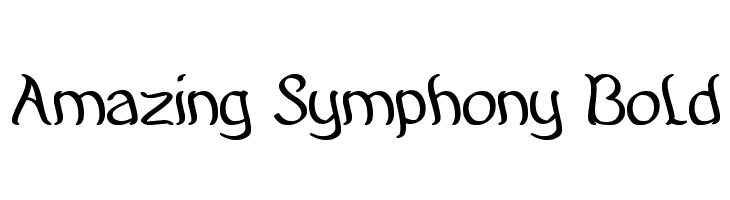
( Fonts by Alit Suarnegara - Alit Design - www.alitdesign.net - Personal-use only. For commercial use please contact owner. )
A playful, bold handwritten font with smooth curves and a lively appearance.
( Fonts by NanaNissa - Personal-use only. For commercial use please contact owner. )
An elegant and flowing script font with graceful curves and loops.
( Fonts by Tan Cundrawan - cove703 - creativemarket.com/cove703 - Personal-use only. For commercial use please contact owner. )
A playful and elegant script font with fluid, connected strokes.
( Fonts by Adien Gunarta - fontasticindonesia.blogspot.com )
An artistic, calligraphic font with elegant curves and decorative flourishes.
( Fonts by 1PrivateTime )
Casual handwritten sans-serif with playful, organic strokes.
( Fonts by 1PrivateTime )
Casual handwritten sans-serif with playful, rounded forms.
( Fonts by Typnco Studio - Personal-use only. For commercial use please contact owner. )
A bold, brush-style script font with dynamic strokes and artistic flair.
( Daddi Daryawan )
A playful and casual handwritten font with fluid, organic letterforms.
( Fonts by Multype Studio )
A relaxed, handwritten script with a natural, flowing style.
( Fonts by Perspectype Studio - Personal-use only. For commercial use please contact owner. )
A dynamic and expressive handwritten font with fluid strokes.
( Fonts by Letterena Studios - letterena.com - Personal-use only. For commercial use please contact owner. )
A dynamic and expressive handwritten font with fluid, energetic strokes.
( Fonts by Perspectype Studio - Personal-use only. For commercial use please contact owner. )
A bold, italic script font with a dynamic, handwritten style.
A bold, expressive handwritten font with dynamic strokes and a modern flair.
( Fonts by Burhan Afif - hanscostudio.com - Personal-use only. For commercial use please contact owner. )
A flowing, cursive script font with elegant, interconnected characters.
( Fonts by Tan Cundrawan - cove703 - creativemarket.com/cove703 - Personal-use only. For commercial use please contact owner. )
A bold, brushstroke-style font with dynamic and expressive characters.